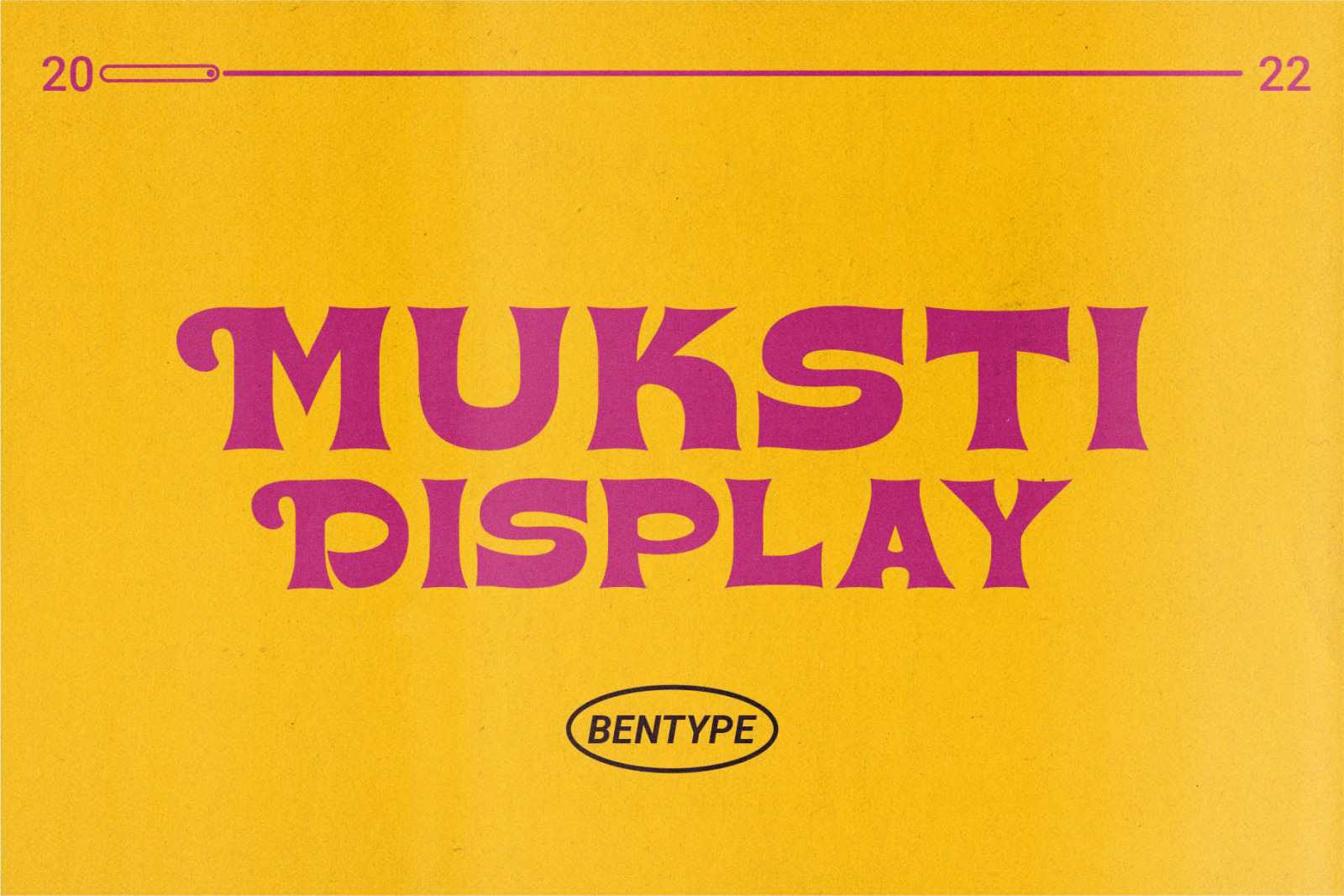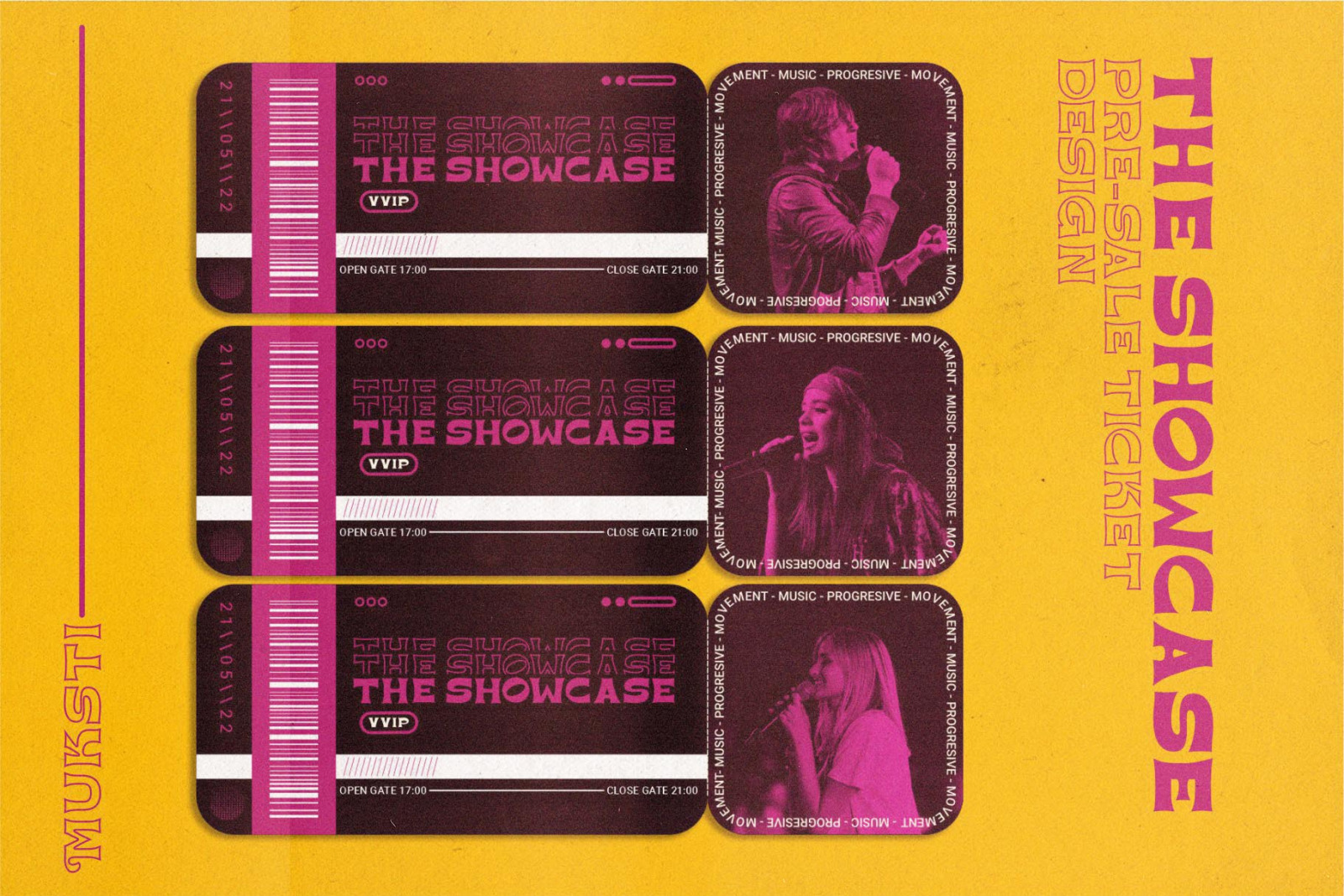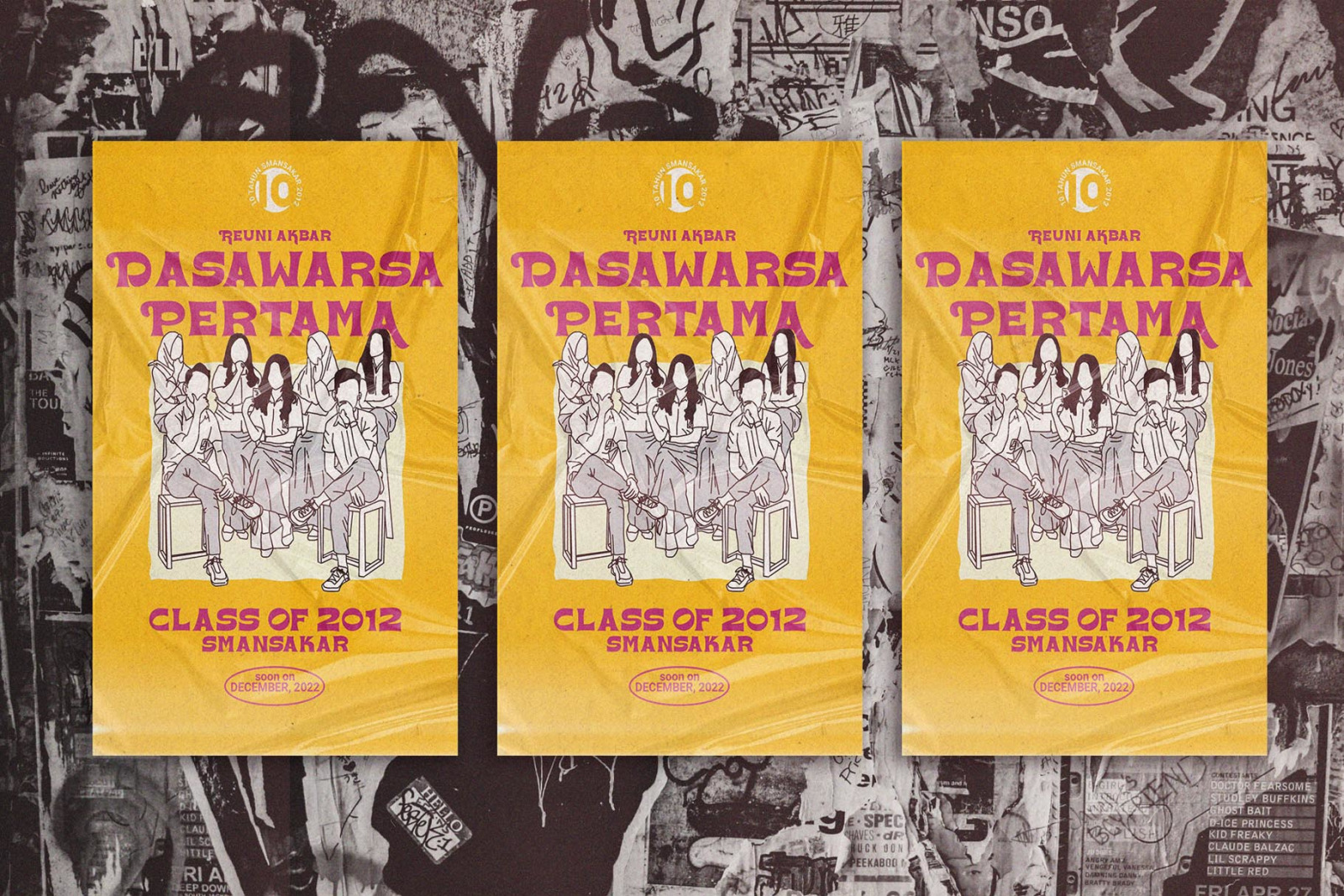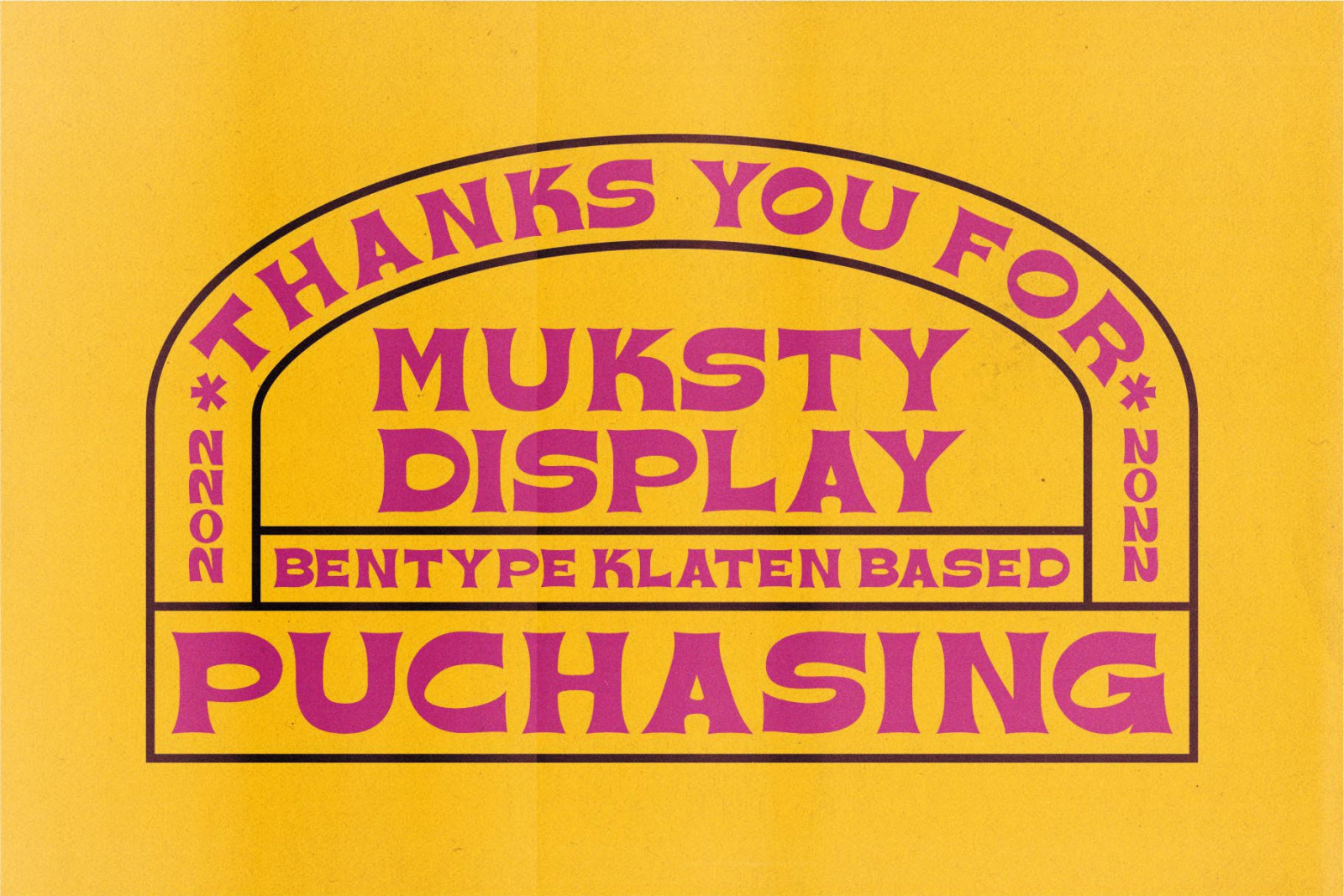
Muksti - Display Font
Muksti Display is inviting typeface designed for 80s or 70s. Whether you want to make a headline, logo, print, t-shirt, phone case, mug or simply a rad design. Thanks to its playful nature, this font can be used for modern and vintage designs.